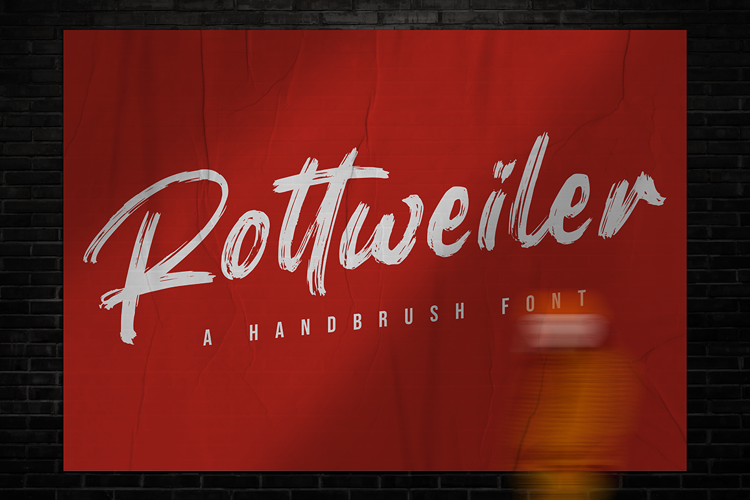
Rottweiler Font
Rottweiler is a unique brush font, perfect for use in modern design projects. This font has a slightly aggressive edge, and works well in displays for use in digital media.